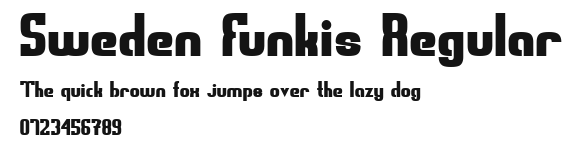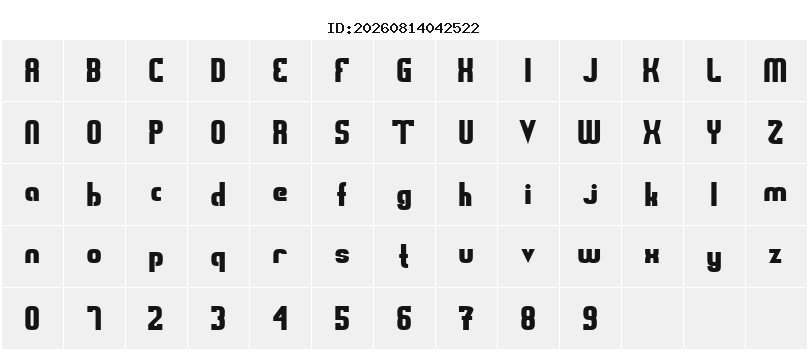
• Font Name: Sweden Funkis Regular
• Font ID: Sweden Funkis
• Full Font Name: Sweden Funkis Regular
• PostScript Name: SwedenFunkisRegular
About Sweden Funkis Regular.ttf
Sweden Funkis Regular.ttf is a modern, elegant sans-serif font designed for ultimate readability and visual harmony. Perfect for branding, headlines, web design, and print materials.